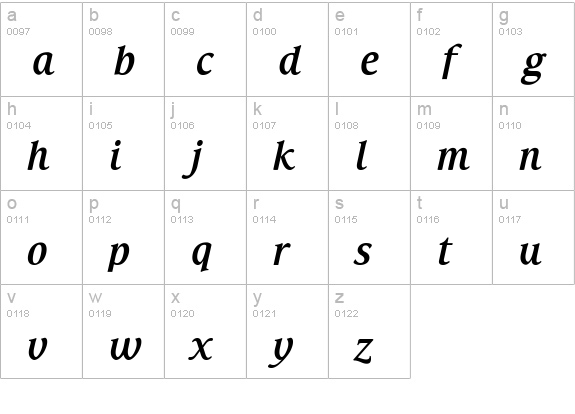
TFHabitat-DemiItalic Font Details
TFHabitat-DemiItalic is a visually stunning typeface that exudes elegance and sophistication. Its sleek and slender letterforms, combined with its delicate italic slant, create a sense of grace and fluidity that is truly captivating. This font is perfect for adding a touch of sophistication to any project, whether it be a fashion magazine, a luxury brand logo, or an invitation to a high-end event. The TFHabitat-DemiItalic font is meticulously crafted with attention to detail, ensuring that each letter flows seamlessly into the next, creating a harmonious and balanced overall look. Its slightly condensed proportions add a touch of modernity, making it a versatile choice for both print and digital applications. One of the most remarkable aspects of TFHabitat-DemiItalic is that it is freely available to download at FontsMarket.com. This means that you can easily access this exquisite font and use it in your projects without any hassle or additional costs. It's a true gem for designers and creatives who are on the lookout for high-quality typefaces that won't break the bank. Whether you're a professional designer or someone who simply appreciates the beauty of typography, TFHabitat-DemiItalic is a font that deserves a place in your collection. Its unique combination of elegance, versatility, and affordability make it a font that stands out from the crowd. So why wait? Head over to FontsMarket.com and download TFHabitat-DemiItalic today to elevate your designs to new levels of sophistication and style.